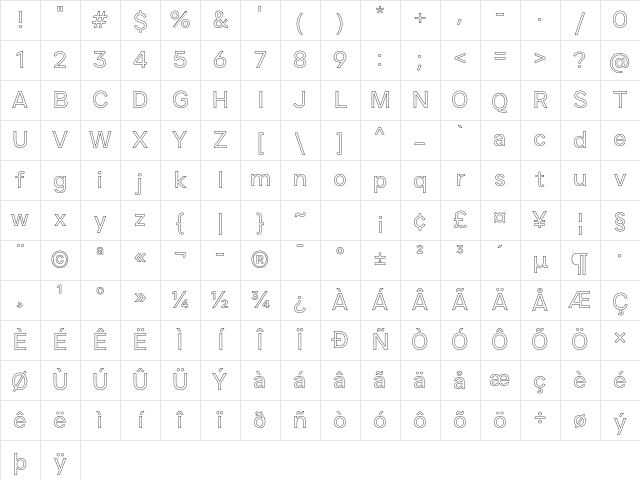
Complete JUST Sans Outline Regular glyph index. Displaying only characters natively supported by JUST Sans Outline Regular font.
JUST Sans Outline is built around its visual character rather than neutral utility - its distinctive forms are designed to make an impression at display sizes.
Font Pairing: Pair with a clean neutral sans-serif for body copy to let JUST Sans Outline's character lead without overwhelming the composition.
Pro Tip: Use JUST Sans Outline exclusively at display sizes - it was designed to be seen, not read at length. Let a neutral companion handle body copy.